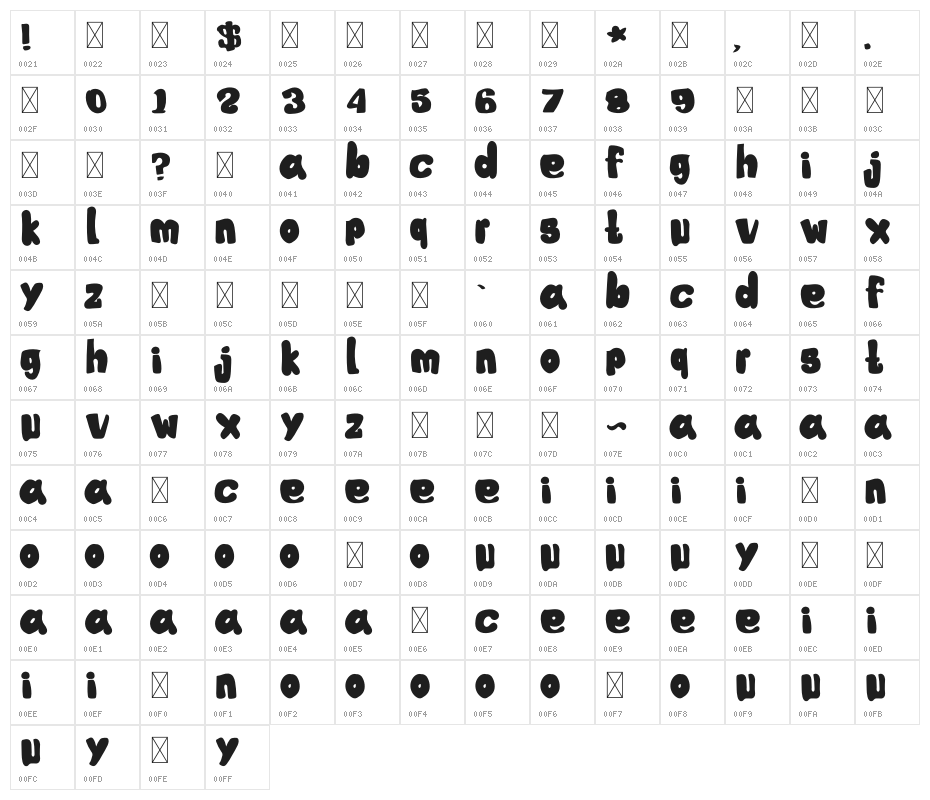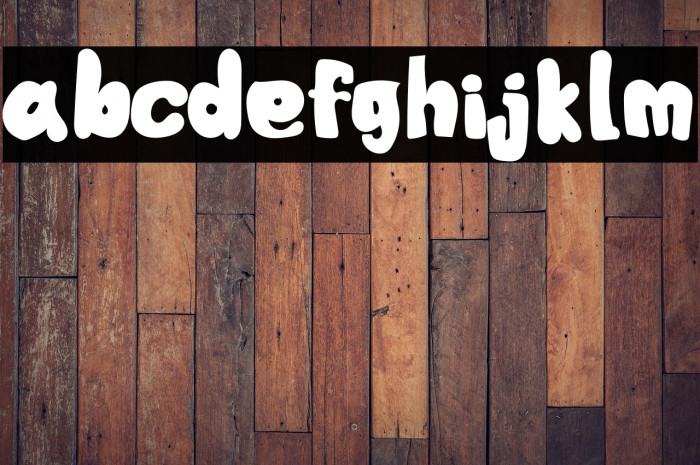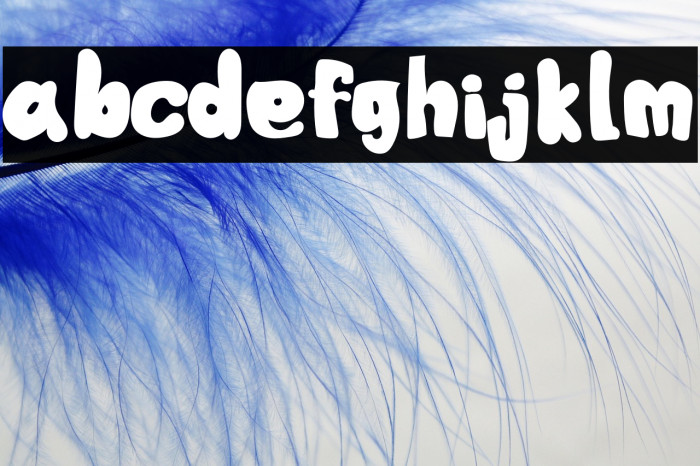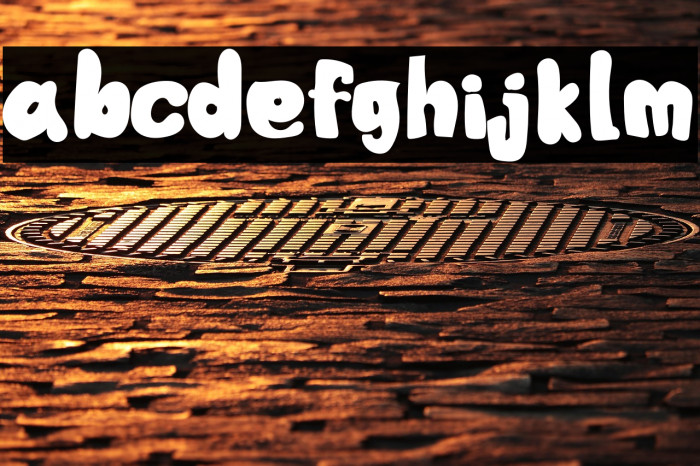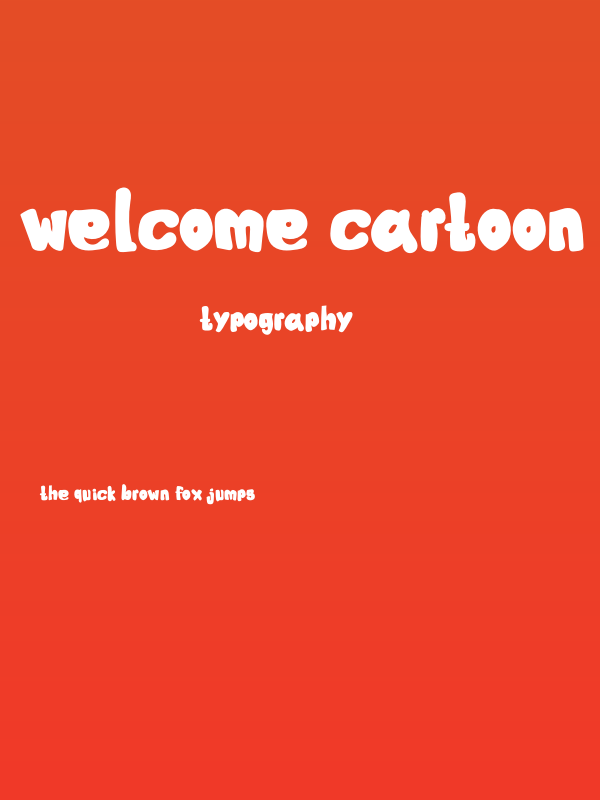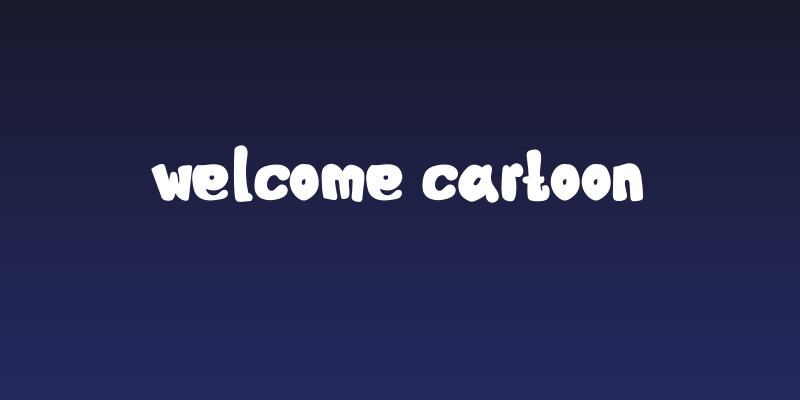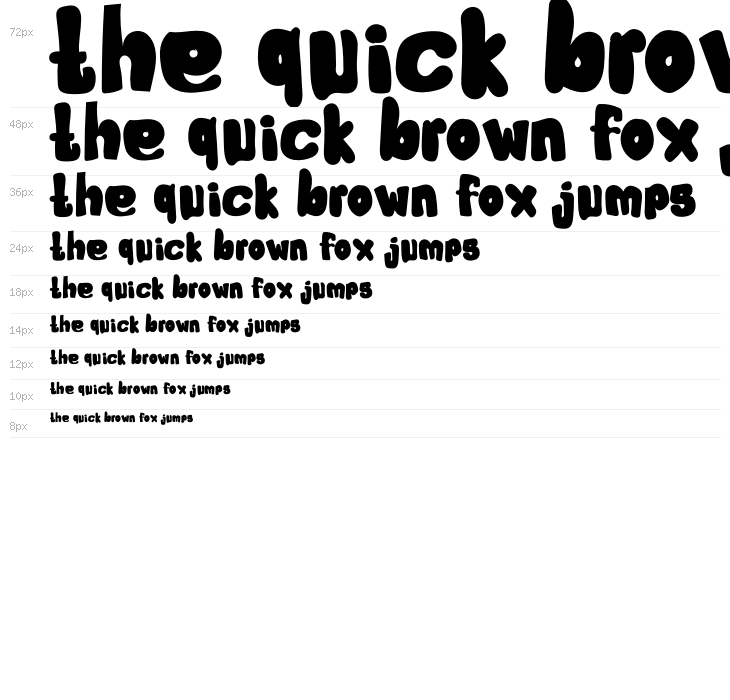
Welcome Cartoon Font
Welcome Cartoon Description
This playful and bold font features a cartoonish style with thick, rounded characters that convey a sense of fun and whimsy. The letters are slightly irregular, adding to the casual and informal feel. The numbers and special characters maintain the same playful aesthetic, making it suitable for creative and lighthearted projects. The font's boldness ensures high visibility, making it ideal for attention-grabbing designs.
Overall StylePlayful, Cartoonish, Fun
Proposed ProjectsIdeal for children's books, comic strips, playful branding, party invitations, and any project requiring a fun and whimsical touch.